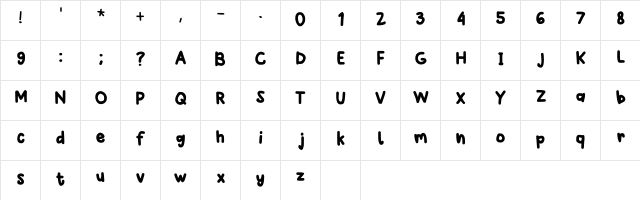
Winkle Regular
Design Context for Winkle Typeface
Winkle is a composed and adaptable typeface that performs quietly and consistently across a wide range of design contexts.